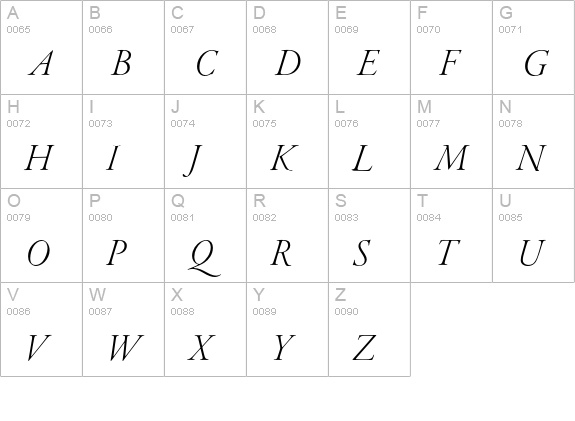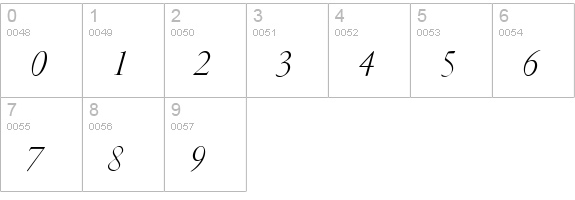
Garamond Premier Pro Light Italic Display is a refined, elegant, italic variant in the Garamond typeface family \xE2\x80\x94 well suited to elegant body text, refined sub-headings, and luxury branding.
Garamond Premier Pro Light Italic Display font exudes elegance and sophistication with its delicate and refined design. The graceful slant of the italic style adds a touch of dynamism and flair to the classic Garamond typeface. Perfect for conveying a sense of grace and sophistication in display text, this font is ideal for projects that require a touch of sophistication and style. Best of all, Garamond Premier Pro Light Italic Display font is available for free download at FontsMarket.com. Now you can elevate your designs with this exquisite font without any cost. Don't miss out on the opportunity to enhance your projects with the timeless beauty of Garamond Premier Pro Light Italic Display font, freely accessible for all your creative needs.